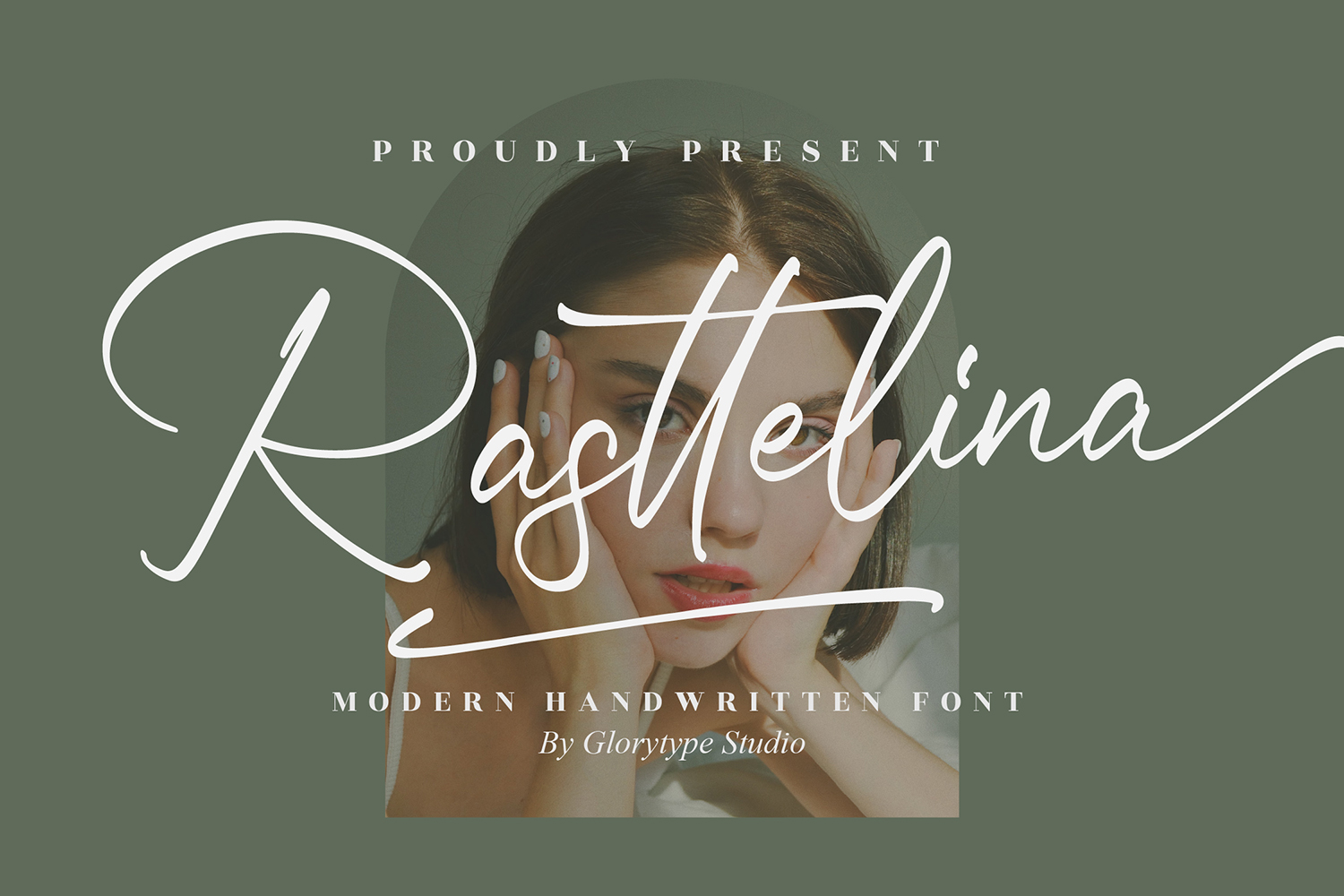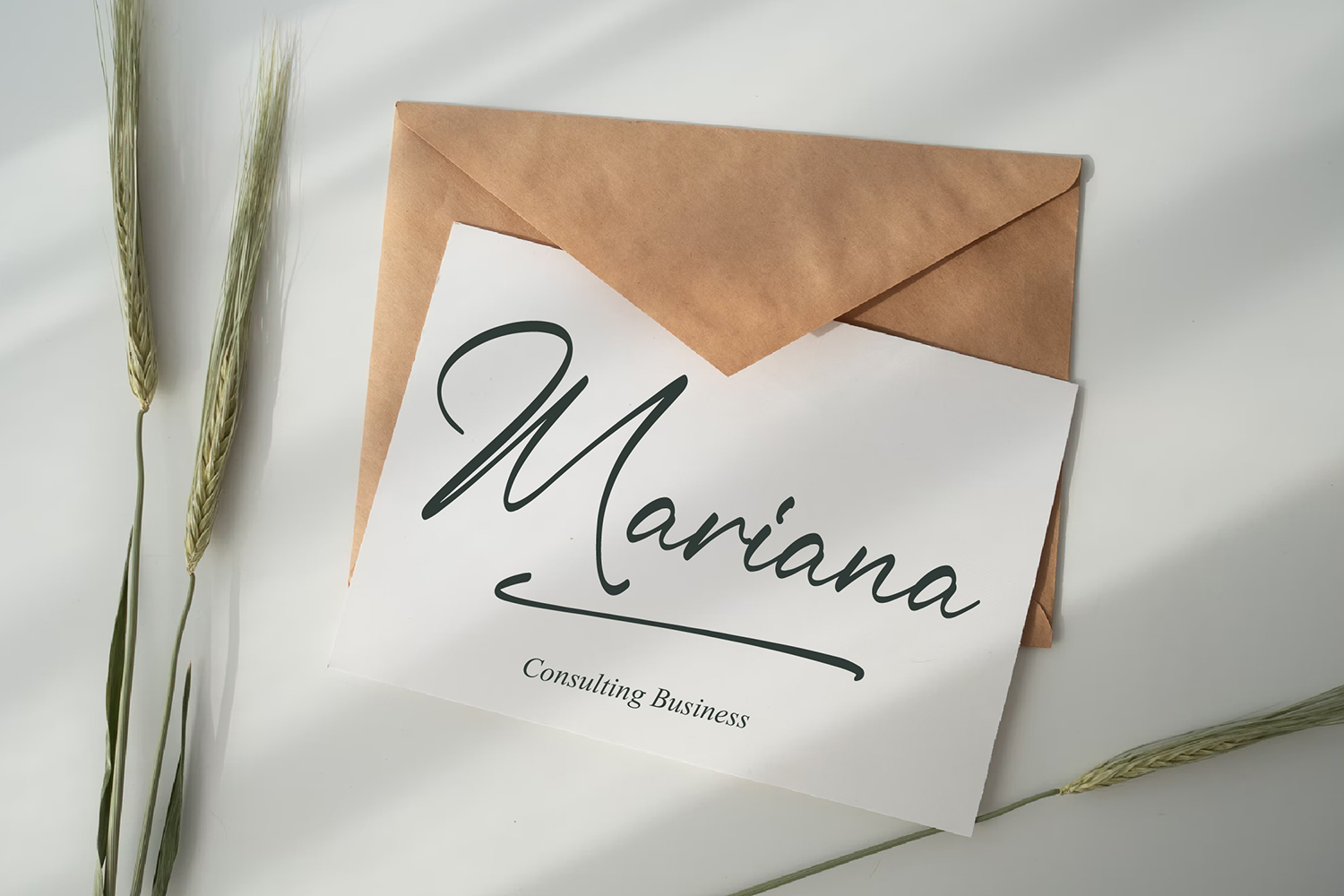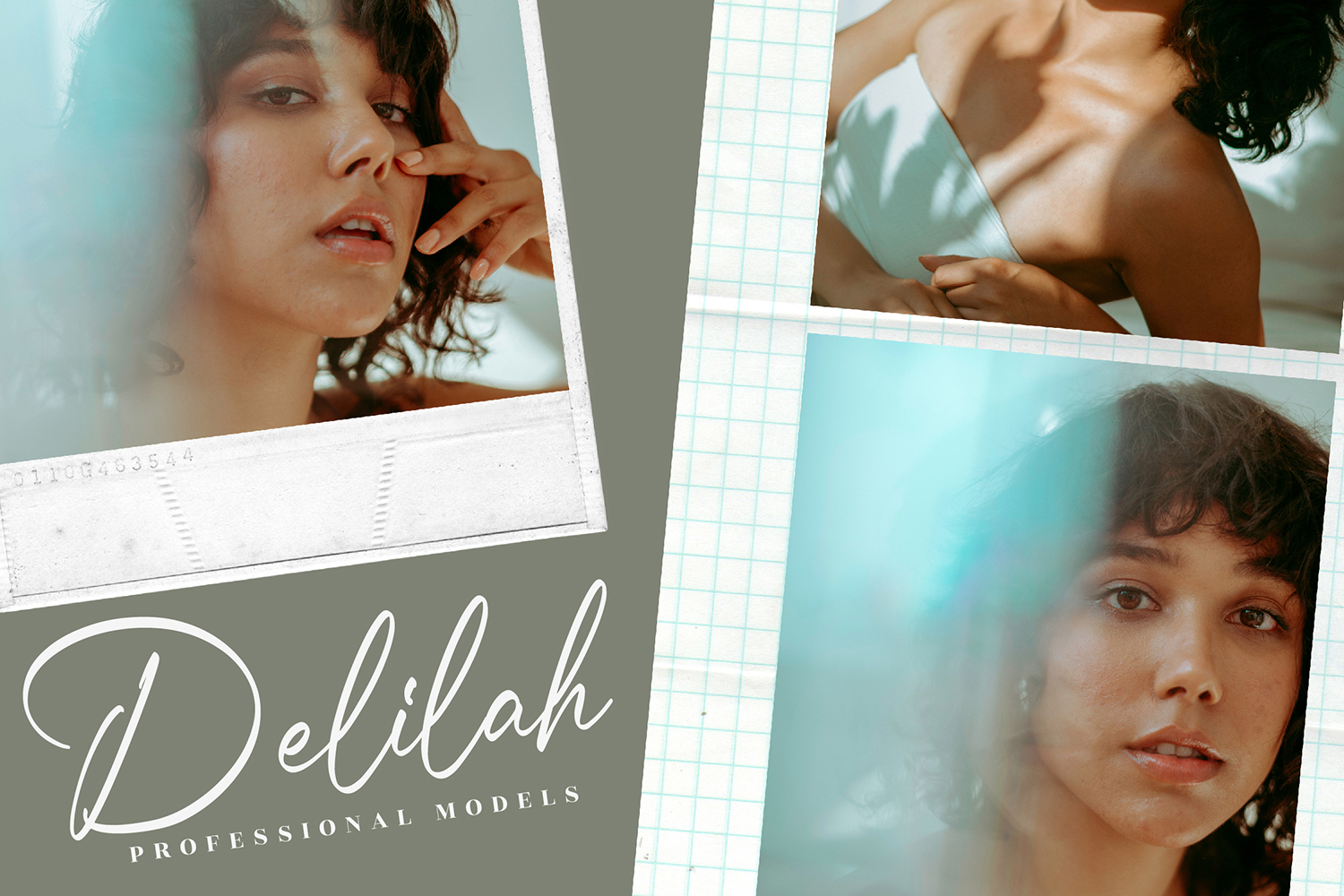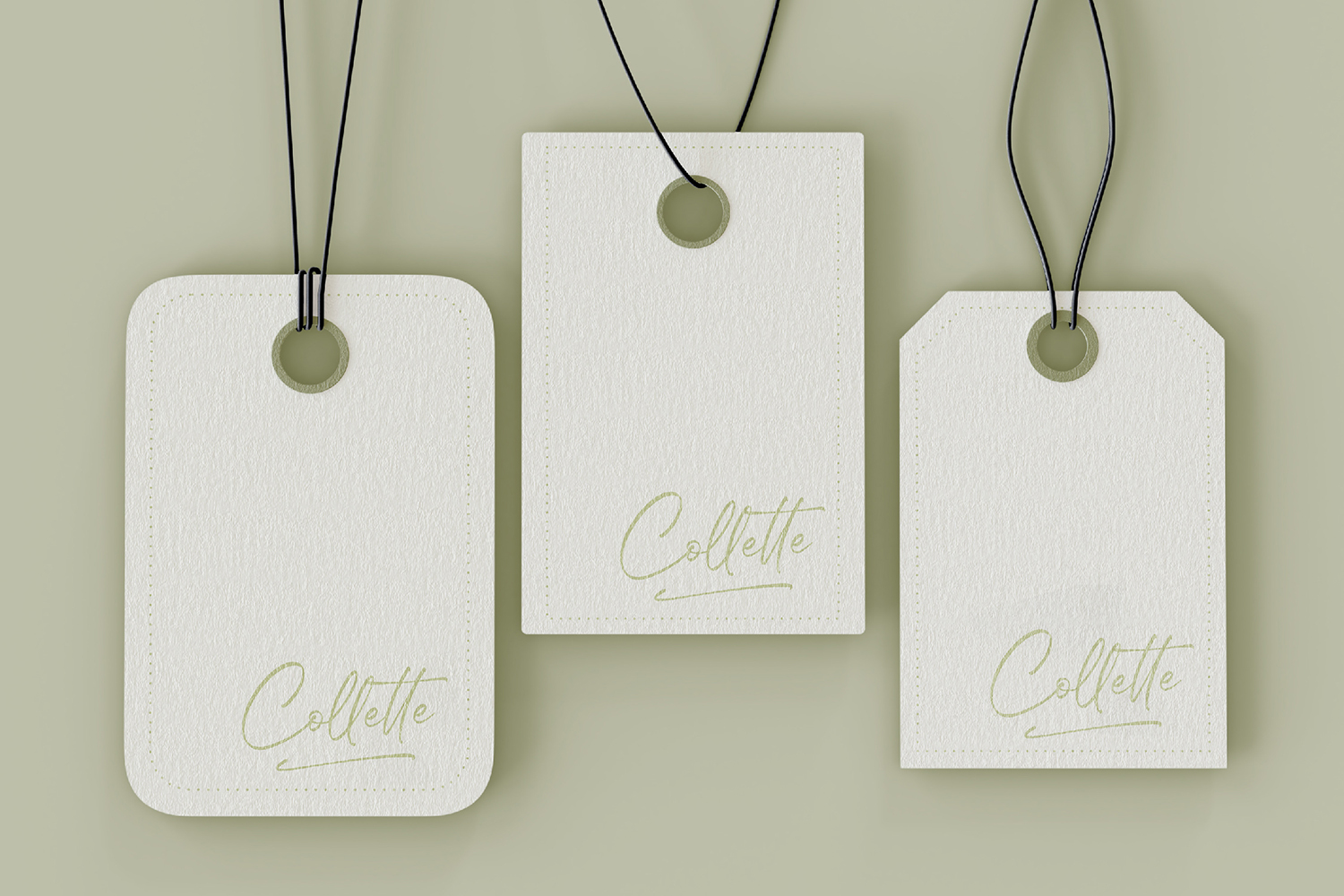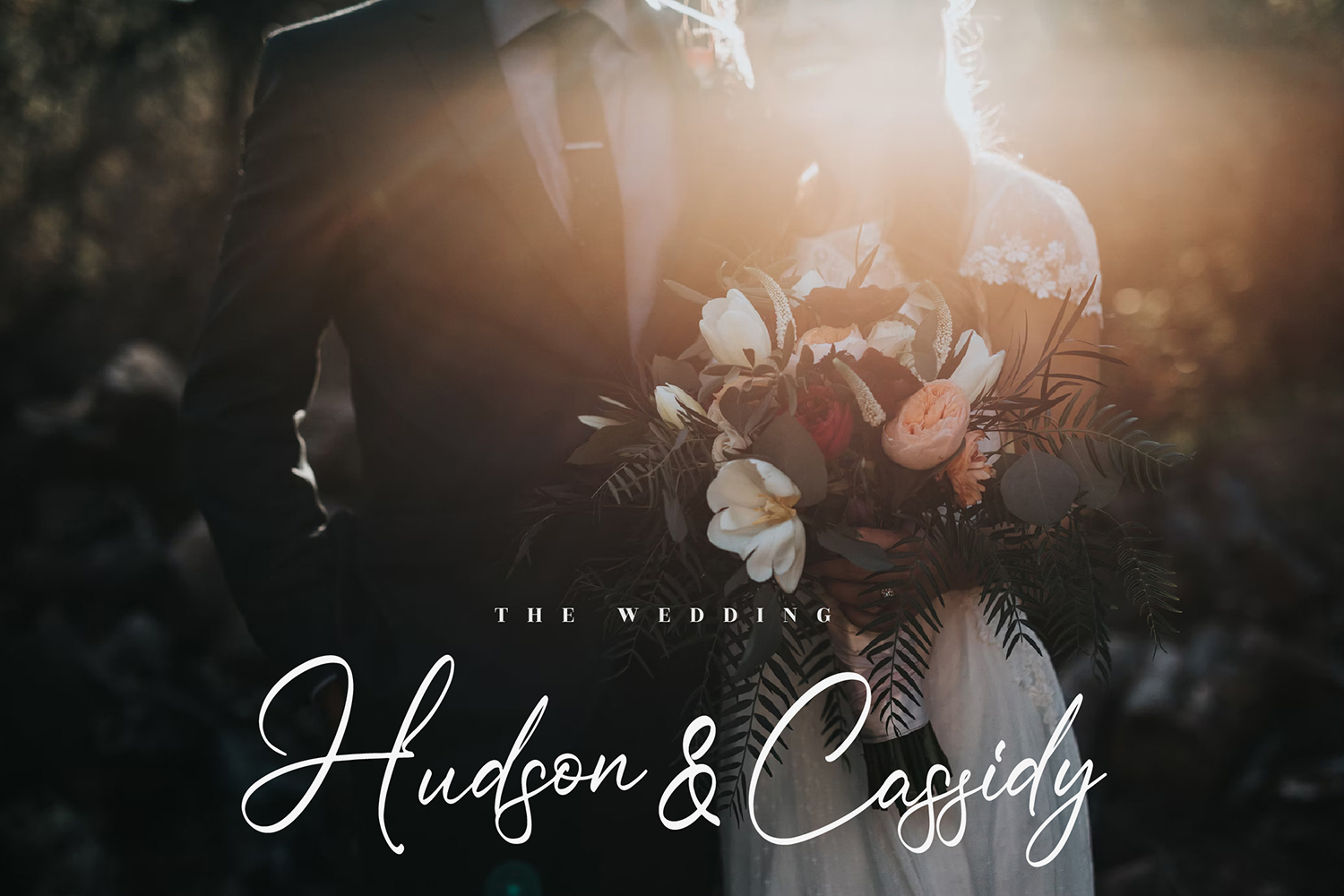
Rasttelina Free Font
Introducing Rasttelina Free Font, a sophisticated script font radiating a modern ambiance and impeccable structure, drawing inspiration from the enduring beauty of classic calligraphy. This free typeface was designed by a talented Glorytype Studio. If you like it don’t forget to check out the full version.